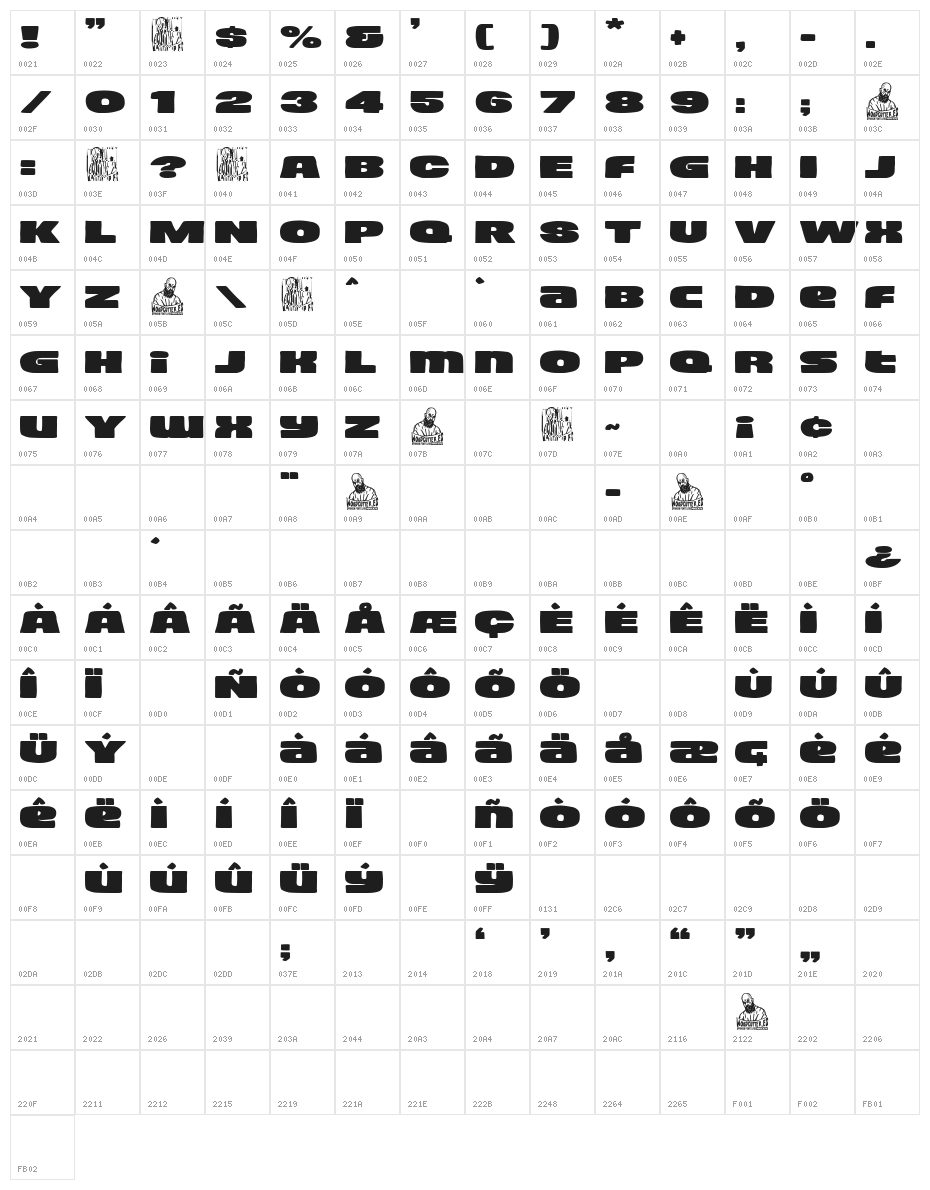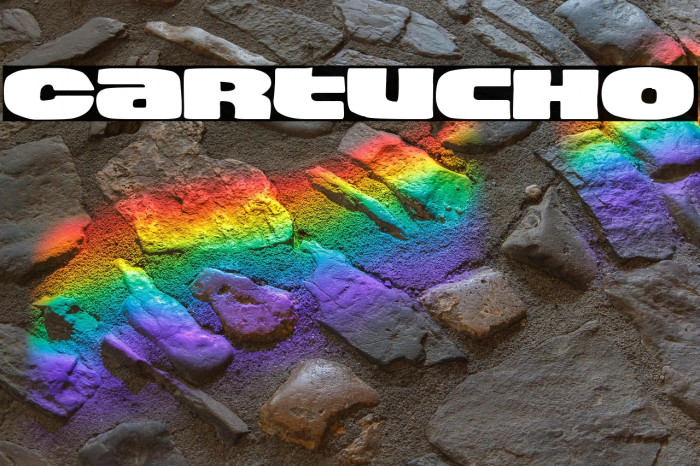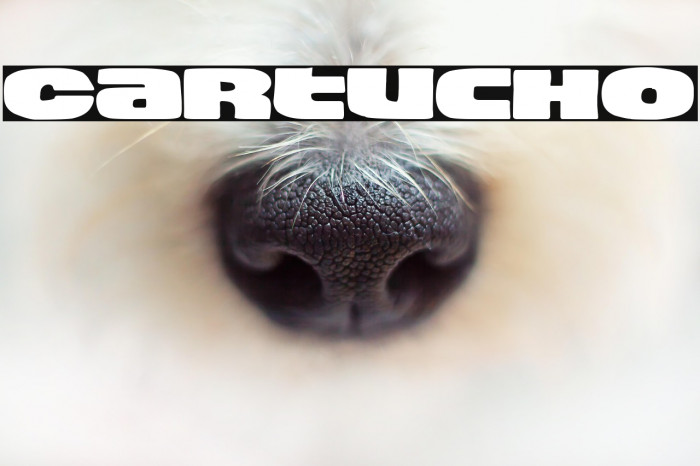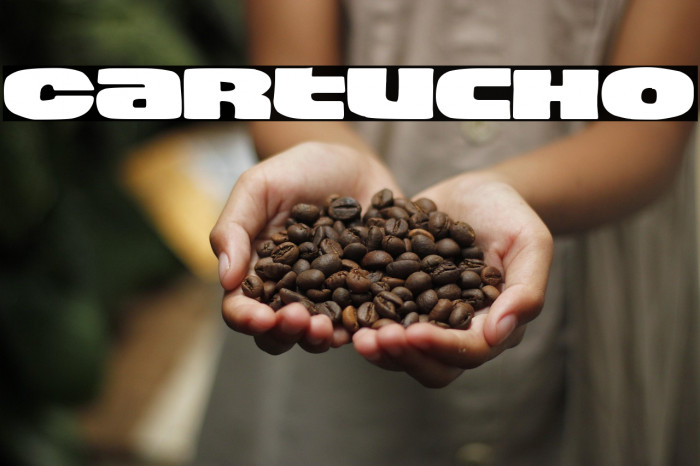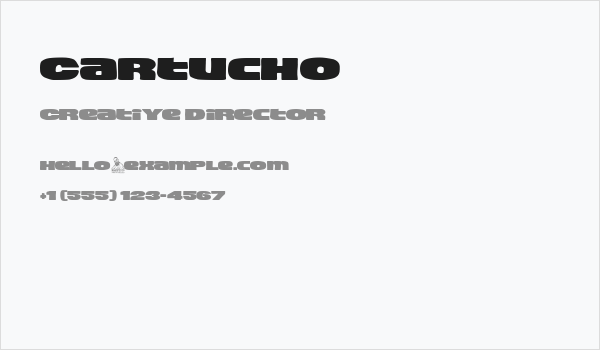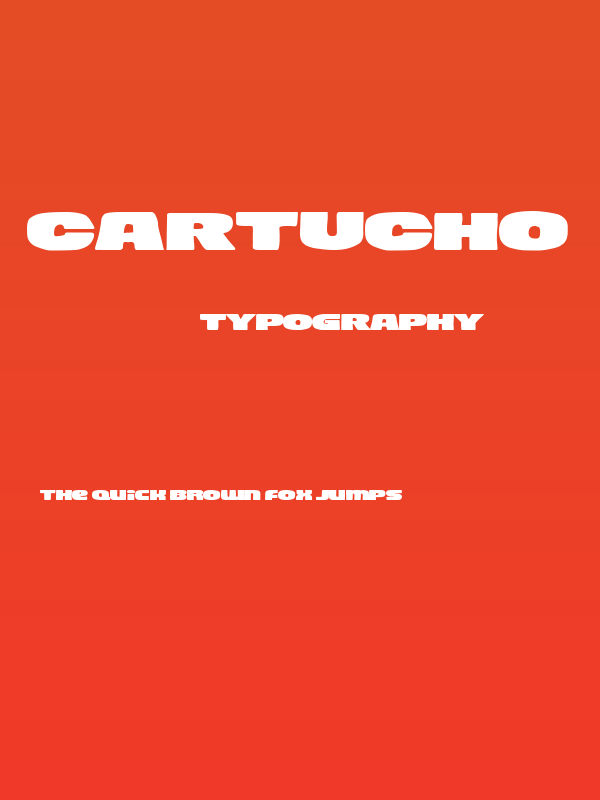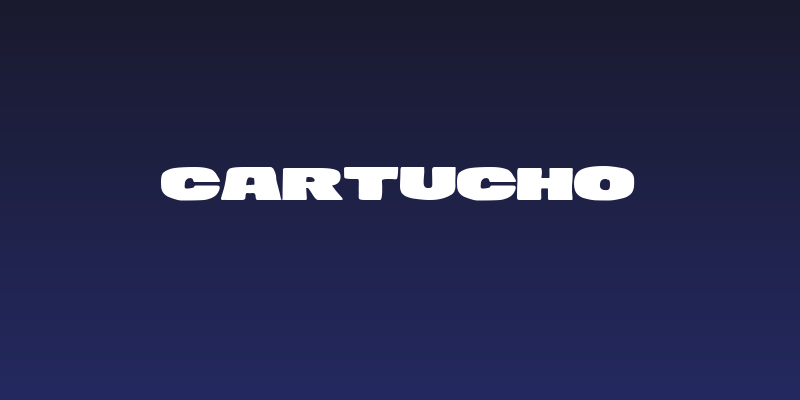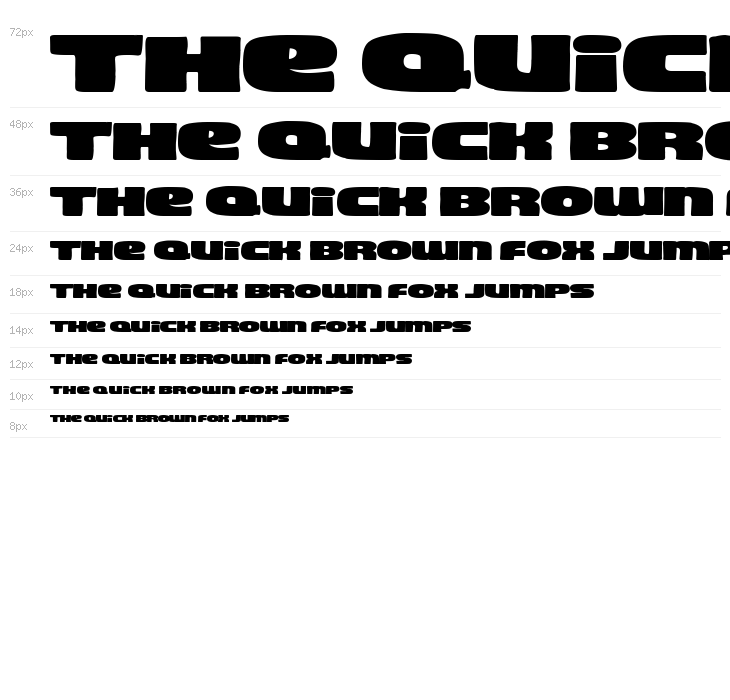
Cartucho Font
Cartucho Description
This bold and impactful font features thick, rounded characters with a strong presence. The letters are uniformly wide, creating a cohesive and solid appearance. The design is playful yet assertive, making it suitable for attention-grabbing headlines or branding. The characters have a smooth, continuous flow with minimal contrast in stroke thickness, emphasizing a modern and approachable style. The font's unique shape and weight make it stand out, while maintaining readability.
| Proposed Projects | Ideal for branding, posters, headlines, and any project requiring a bold statement. |